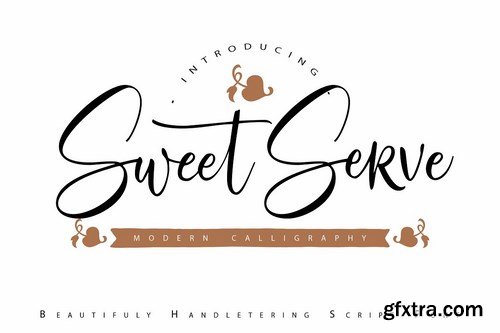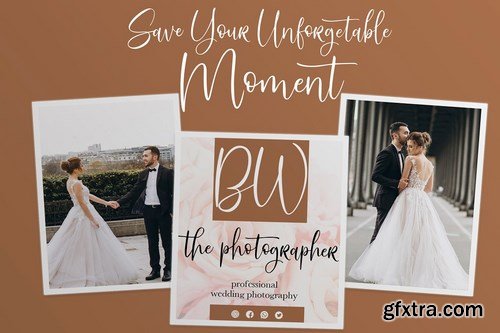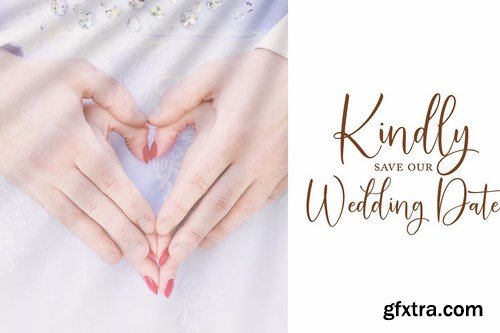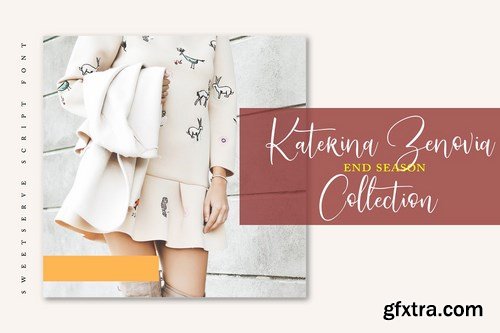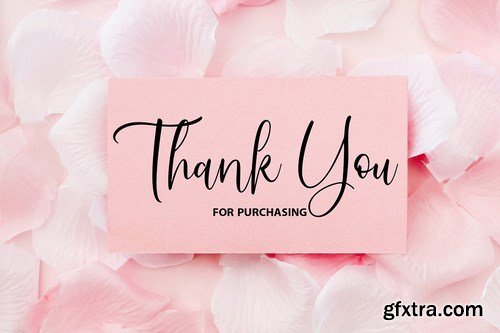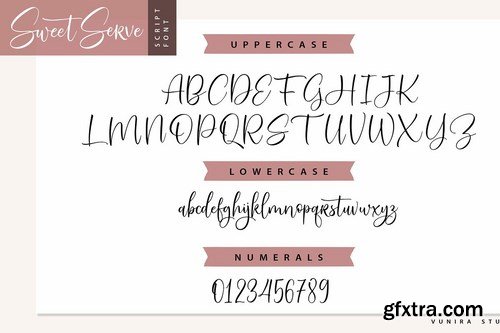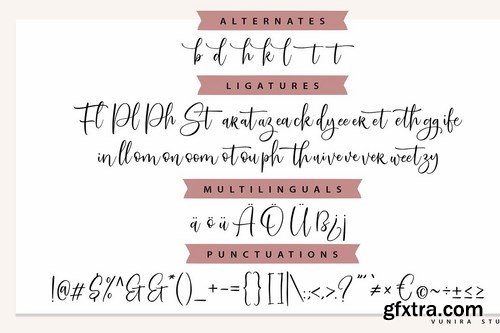
SweetServe | Modern Calligraphy Font with a calligraphy style, So beautiful on invitation like greeting cards, branding materials, business cards, quotes, posters, and more!